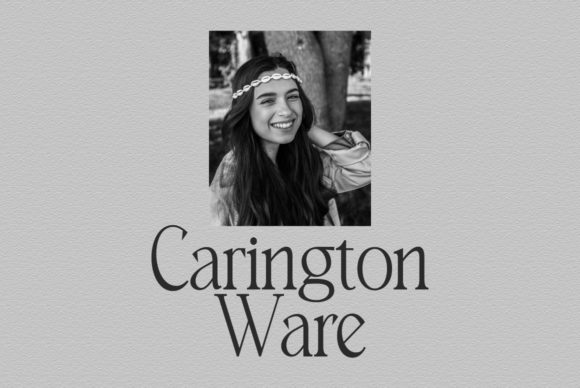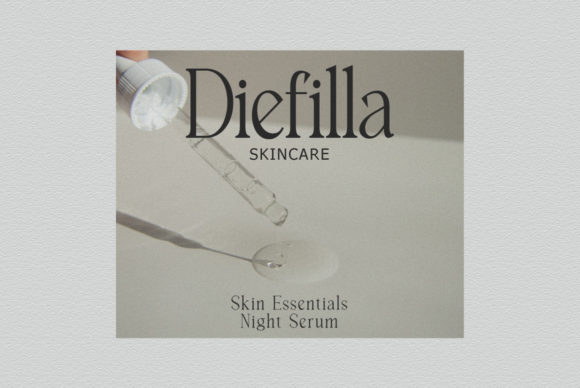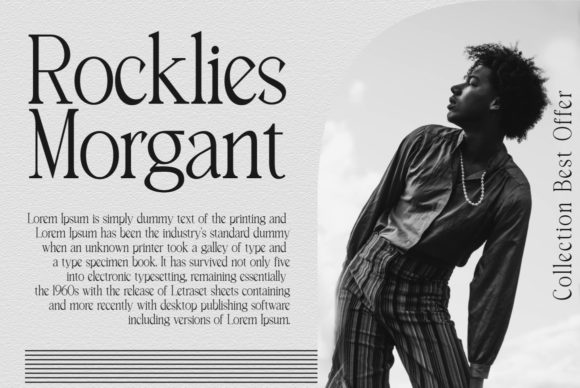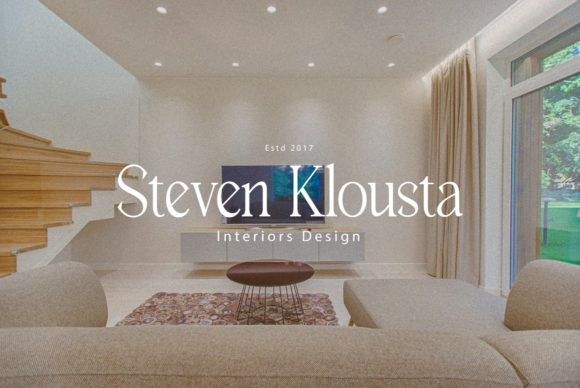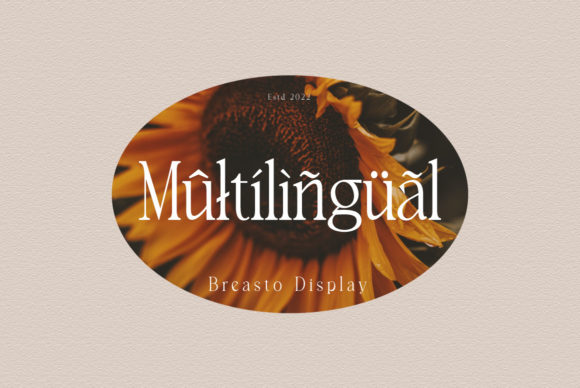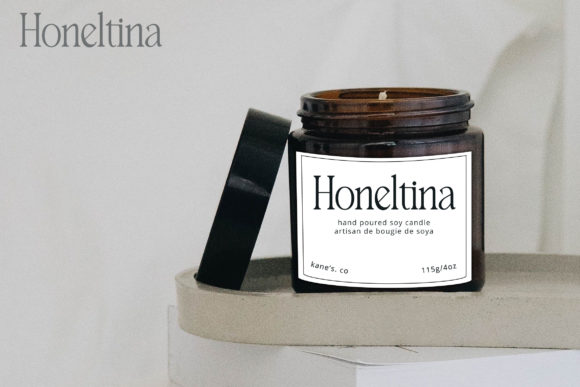
Breasto Font: Elevate Your Designs with a Stylish and Distinct Serif Font
In the world of typography, a font can make or break a design. For designers and crafters looking to add a touch of elegance and sophistication to their projects, the Breasto font is an excellent choice. This stylish and distinct serif font is designed to make your designs stand out, and its slim and authentic look makes it perfect for a wide range of applications.
What Makes Breasto Font Special?
Breasto is not just another font; it’s a design statement. Its unique and elegant design makes it perfect for use in fashion, luxury brands, and high-end designs. The font’s slim and authentic look gives it a distinctive edge, setting it apart from more traditional serif fonts.
One of the standout features of the Breasto font is its PUA (Private Use Area) encoding. This means that you can access all of the glyphs and swashes with ease, giving you greater flexibility and creative control over your designs. With PUA encoding, you can easily access and use the font’s various features, making it easier to create stunning and unique designs.
Whether you’re a professional designer or a crafter looking to add a personal touch to your projects, the Breasto font is an excellent choice. Its elegant and sophisticated design makes it perfect for use in a wide range of projects, including:
• Fashion branding and advertising
• Luxury packaging and labeling
• Wedding and event invitations
• Stationery and letterheads
• Digital graphics and social media assets
Key Features of Breasto Font
The Breasto font comes with a range of features that make it an excellent choice for designers and crafters. Some of its key features include:
• Stylish and distinct serif design
• Slim and authentic look
• PUA encoded for easy access to glyphs and swashes
• High-quality and crisp design
• Perfect for use in digital and print designs
Tips for Getting the Most Out of Breasto Font
To get the most out of the Breasto font, here are a few tips:
• Use it sparingly: The Breasto font is a statement font, so use it sparingly to make a maximum impact.
• Experiment with different sizes: The font looks great in a range of sizes, from large headings to smaller body text.
• Pair it with other fonts: The Breasto font pairs well with a range of other fonts, so experiment with different combinations to find the perfect look for your design.
The Breasto font is an excellent choice for designers and crafters looking to add a touch of elegance and sophistication to their projects. Its stylish and distinct serif design, slim and authentic look, and PUA encoding make it perfect for use in a wide range of applications. With its high-quality and crisp design, the Breasto font is sure to elevate your designs and make them stand out.